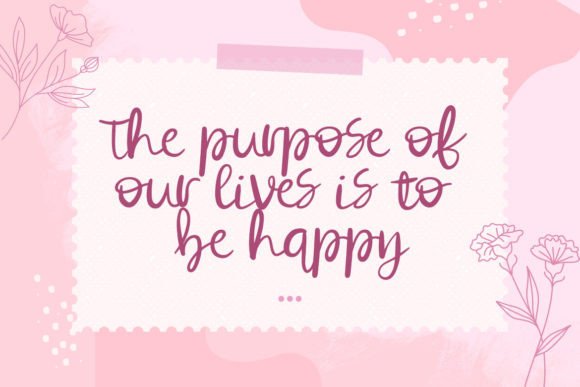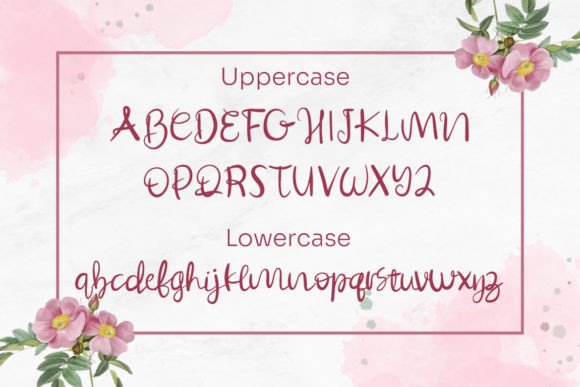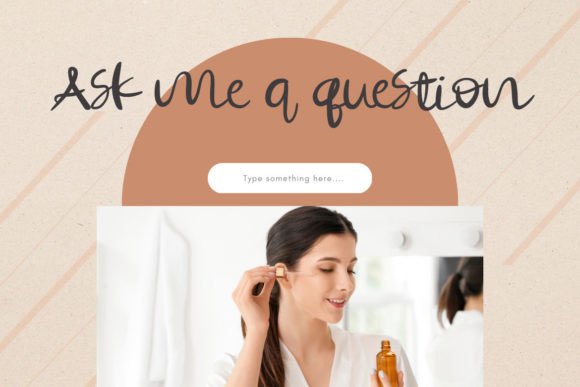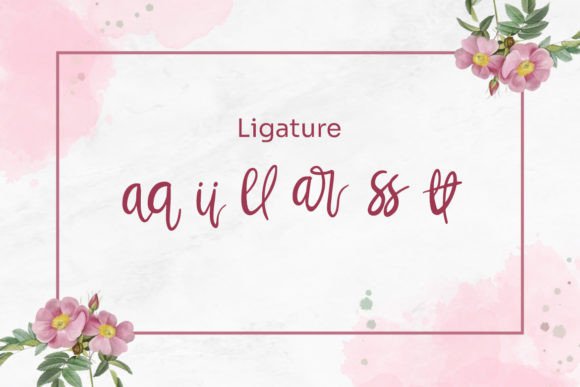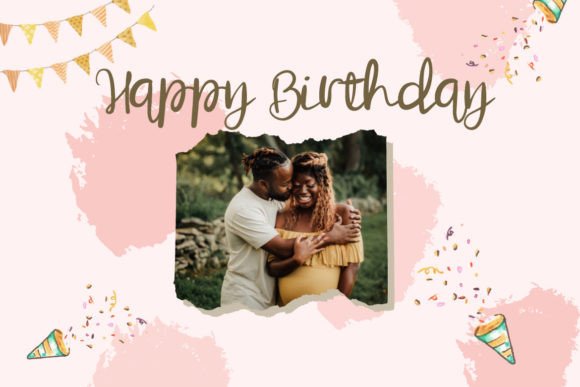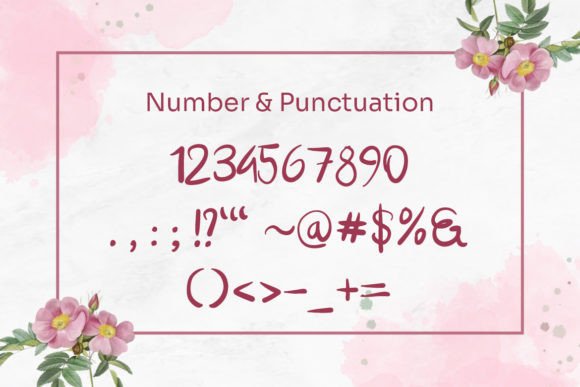
Unleashing Creativity with Bevalyn Febiolas Font
Have you ever sat at your desk, staring at a blank page, waiting for inspiration to strike? It’s a moment we’ve all been there, searching for that spark that brings our ideas to life. For designers, this moment can be especially daunting, as the right font can make all the difference in conveying our vision.
Enter Bevalyn Febiolas Font, a delicate, elegant, and flowing handwritten signature font that’s perfect for adding a touch of whimsy to your most creative ideas. With its unique charm, Bevalyn Febiolas Font is a valuable addition to any designer’s toolkit, allowing them to bring their imagination to life in a way that’s both beautiful and unique.
- Unique Characteristics: The Bevalyn Febiolas Font features a unique blend of modern and vintage elements, with intricate details and ornaments, making it suitable for various design applications, including invitations, greeting cards, and luxury branding.
Designer Review: Bevalyn Febiolas Font
At first glance, Bevalyn Febiolas Font appears to be a beautiful and elegant script font. I love the flowing lines and subtle flourishes that give it a sense of sophistication. ✨ The font’s soft, cursive feel makes it perfect for use in invitations, watermarks, and other creative projects where a touch of whimsy is needed.
One of the standout features of Bevalyn Febiolas Font is its excellent legibility. The font is clear and easy to read, even at smaller font sizes, making it a great choice for body text or headings. ✨ The font also comes in a range of weights, from Light to Bold, which allows for a high degree of customization.
- ⚠️ The font may be too ornate for some users, which can make it difficult to read in certain contexts. For example, using it for body text in a technical document may not be the best choice.
- ⚠️ The font’s complexity may also make it challenging to pair with other fonts, which can limit its versatility.
Overall, I would give Bevalyn Febiolas Font 4 out of 5 stars. While it has some limitations, its beauty and legibility make it a great choice for many design projects. With some careful consideration of its potential drawbacks, I think this font has the potential to be a valuable addition to any designer’s toolkit.
Getting the Most Out of Bevalyn Febiolas Font
To get the most out of Bevalyn Febiolas Font, use it for:
- Typography-heavy designs, such as posters or brochures.
- Creating a unique and eye-catching brand identity.
- Adding a touch of elegance to your designs.
Q: What is the character set of Bevalyn Febiolas Font?
Bevalyn Febiolas Font includes a comprehensive character set, supporting multiple languages and scripts, including Latin, Cyrillic, and Greek alphabets, as well as punctuation and symbol characters.